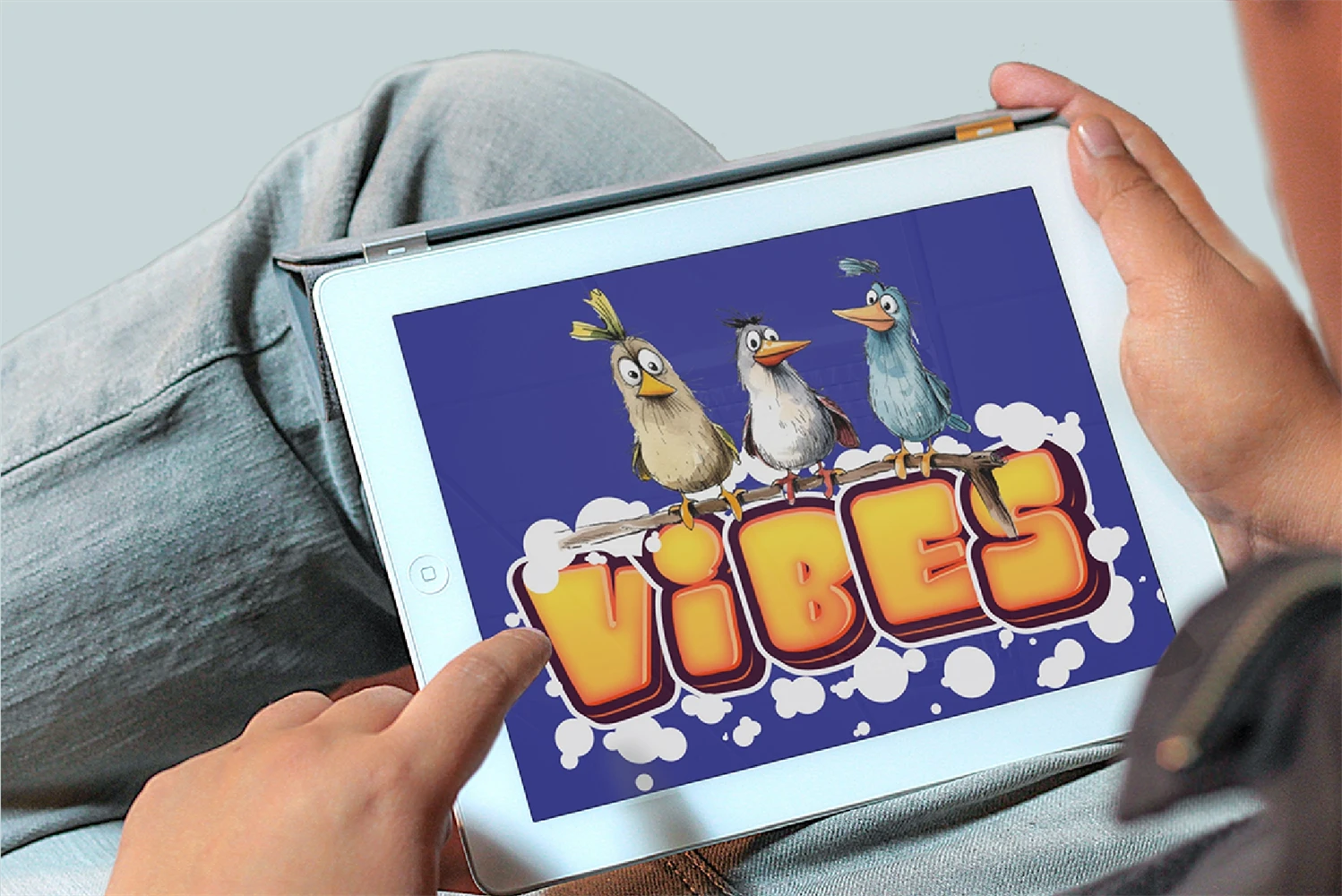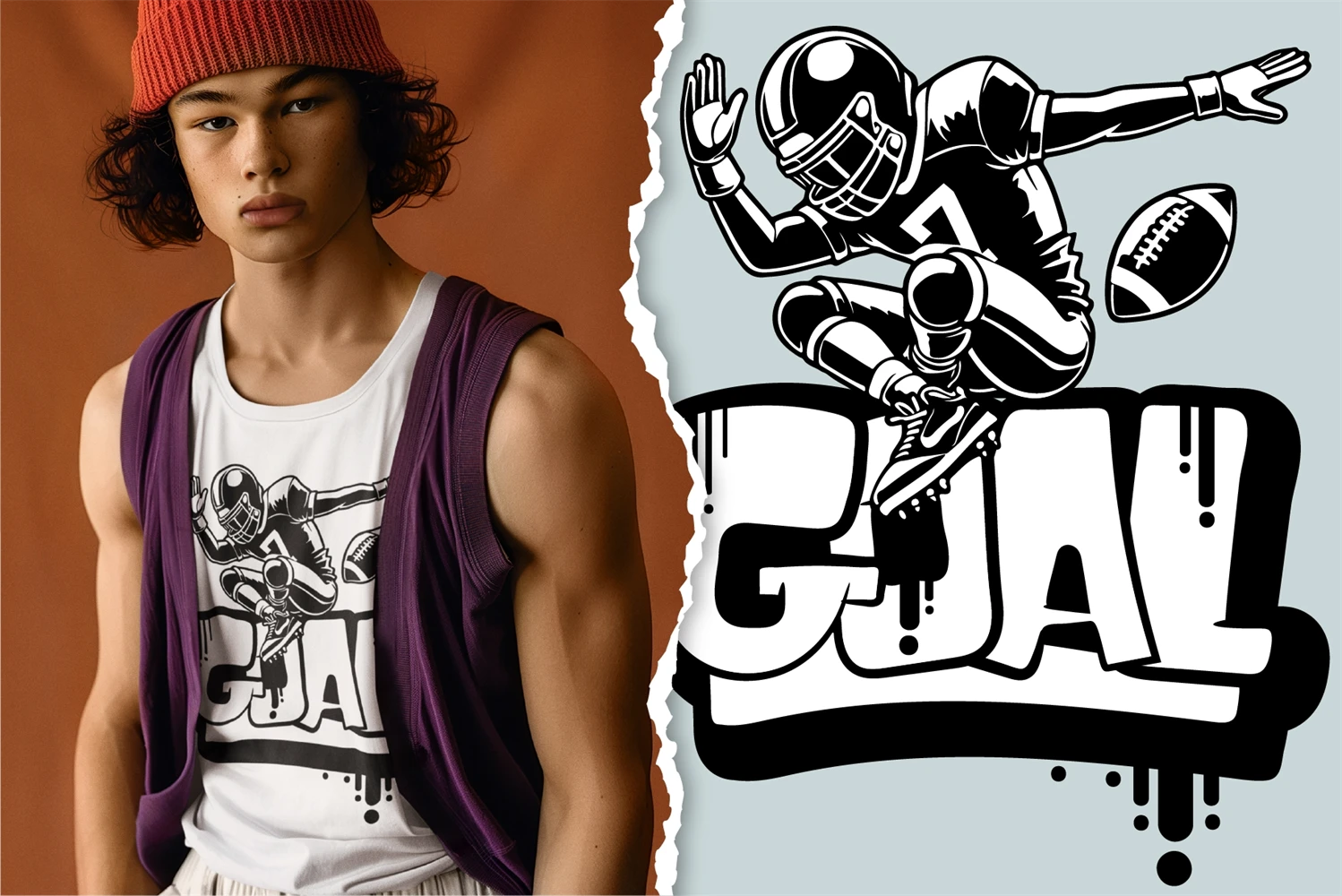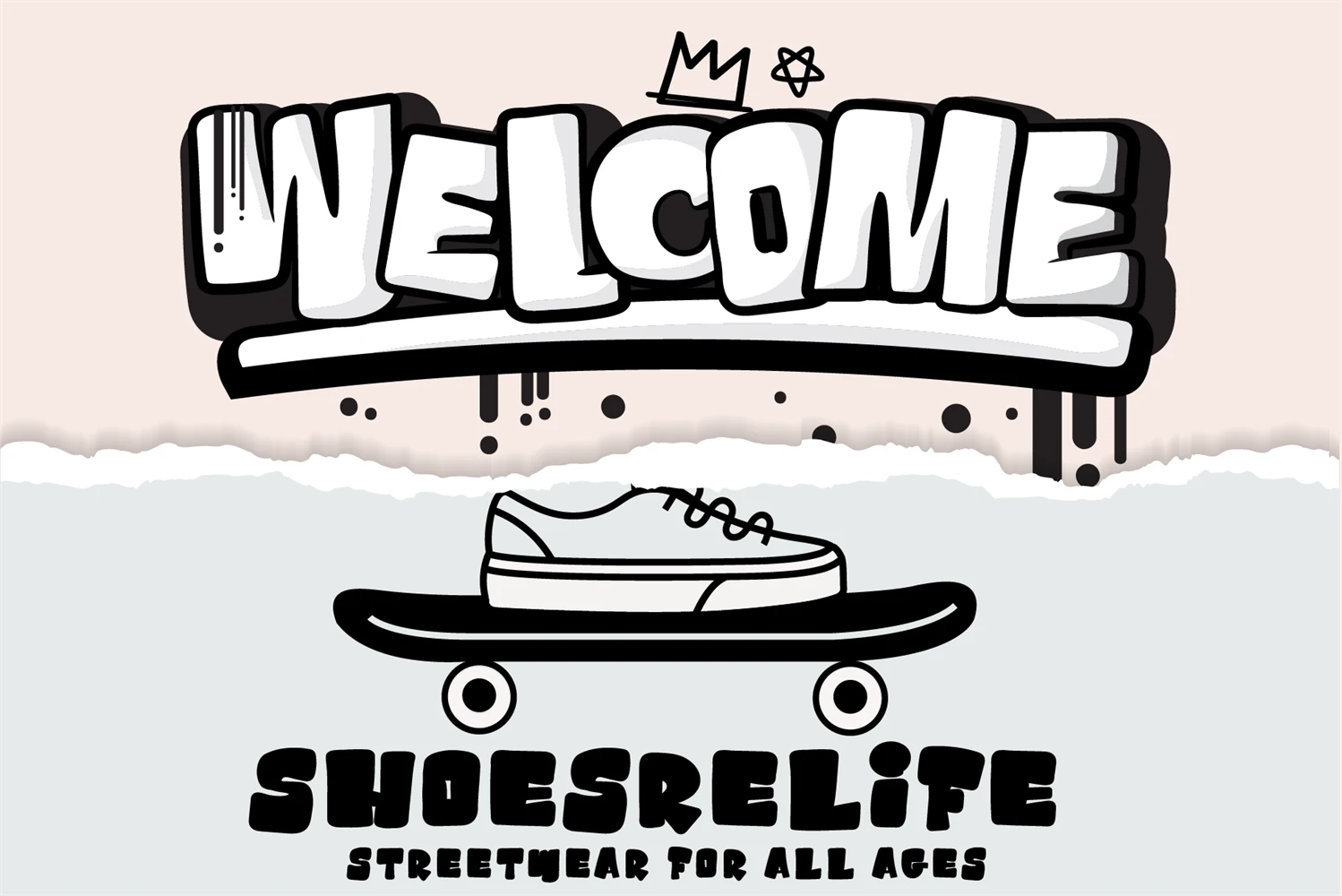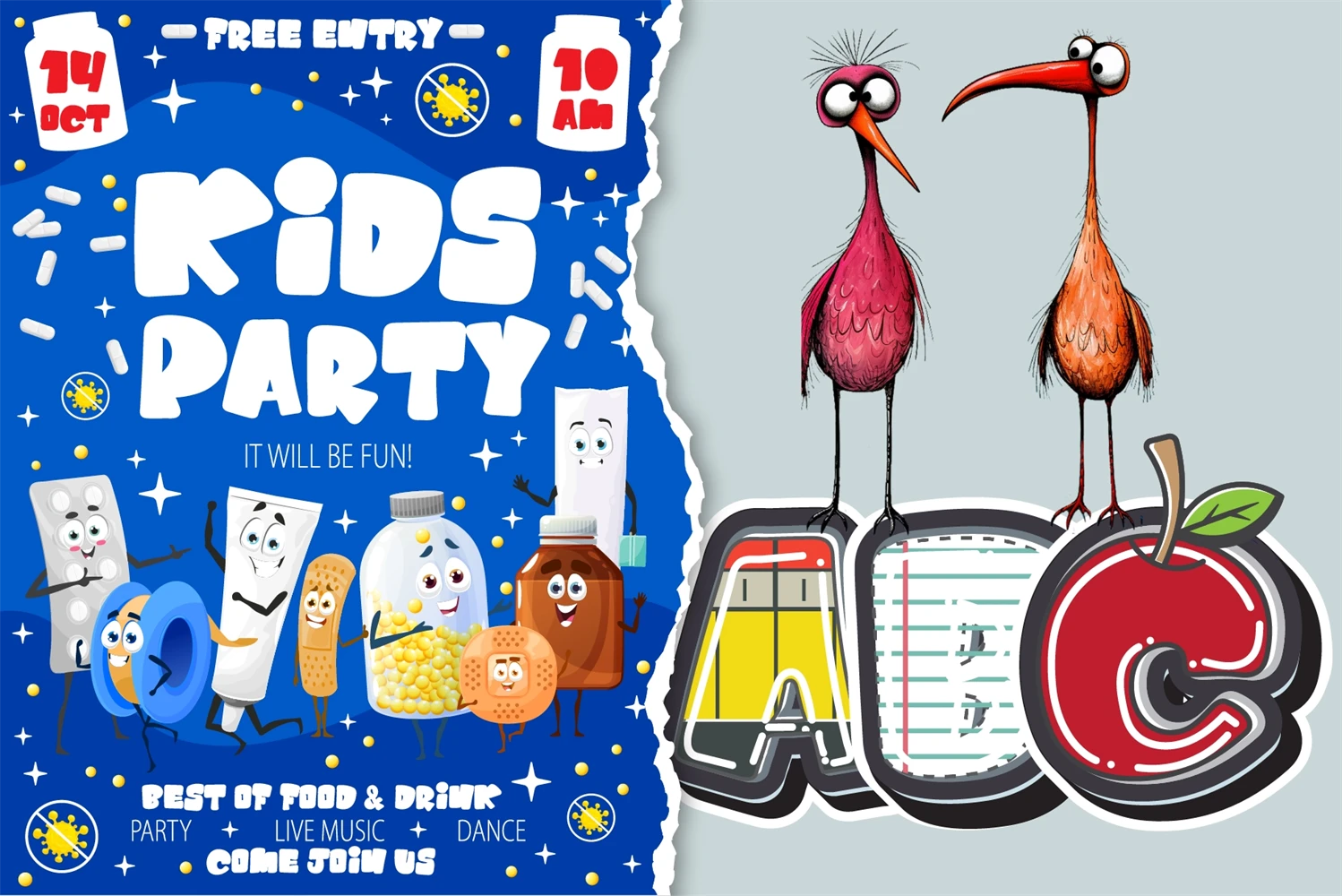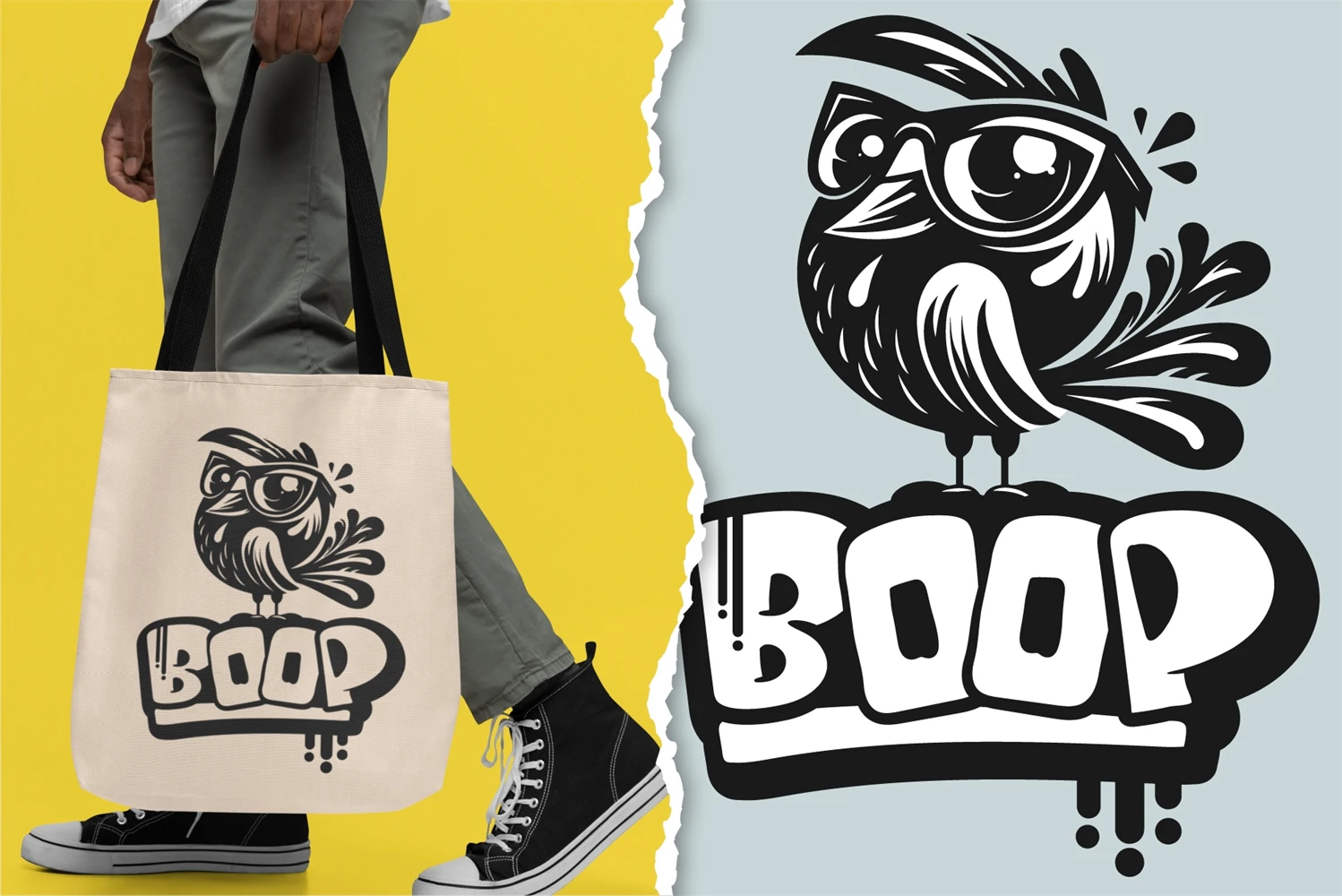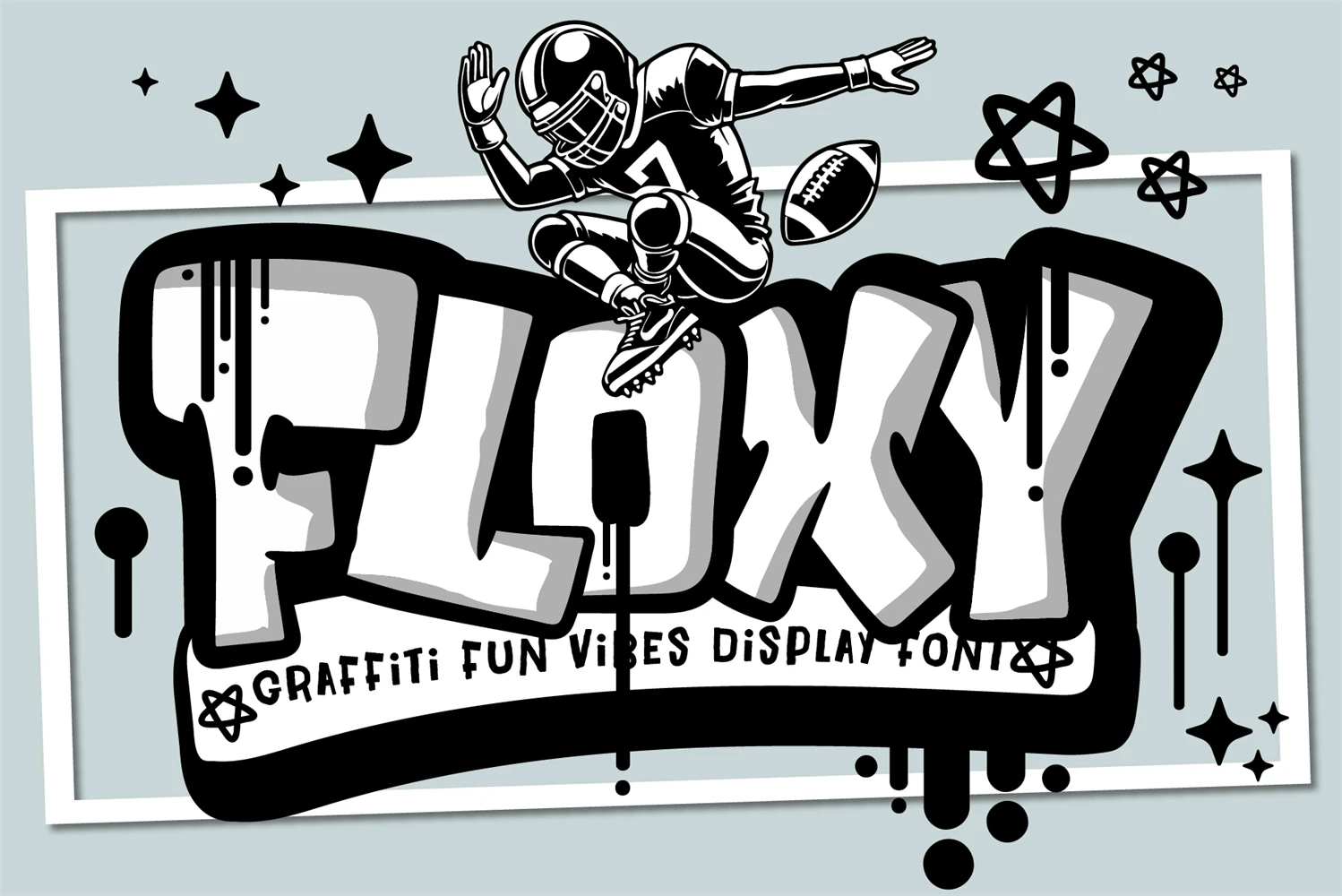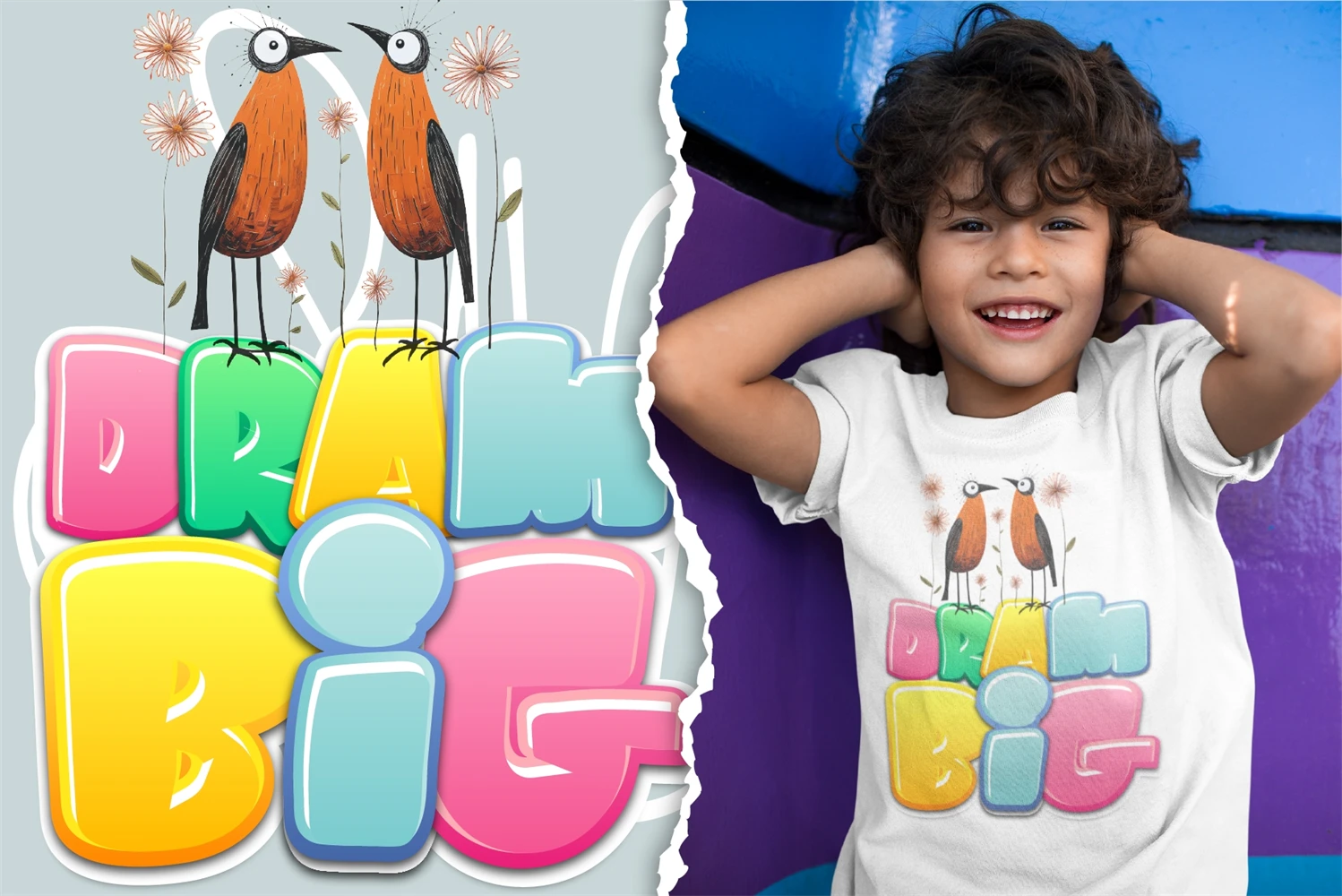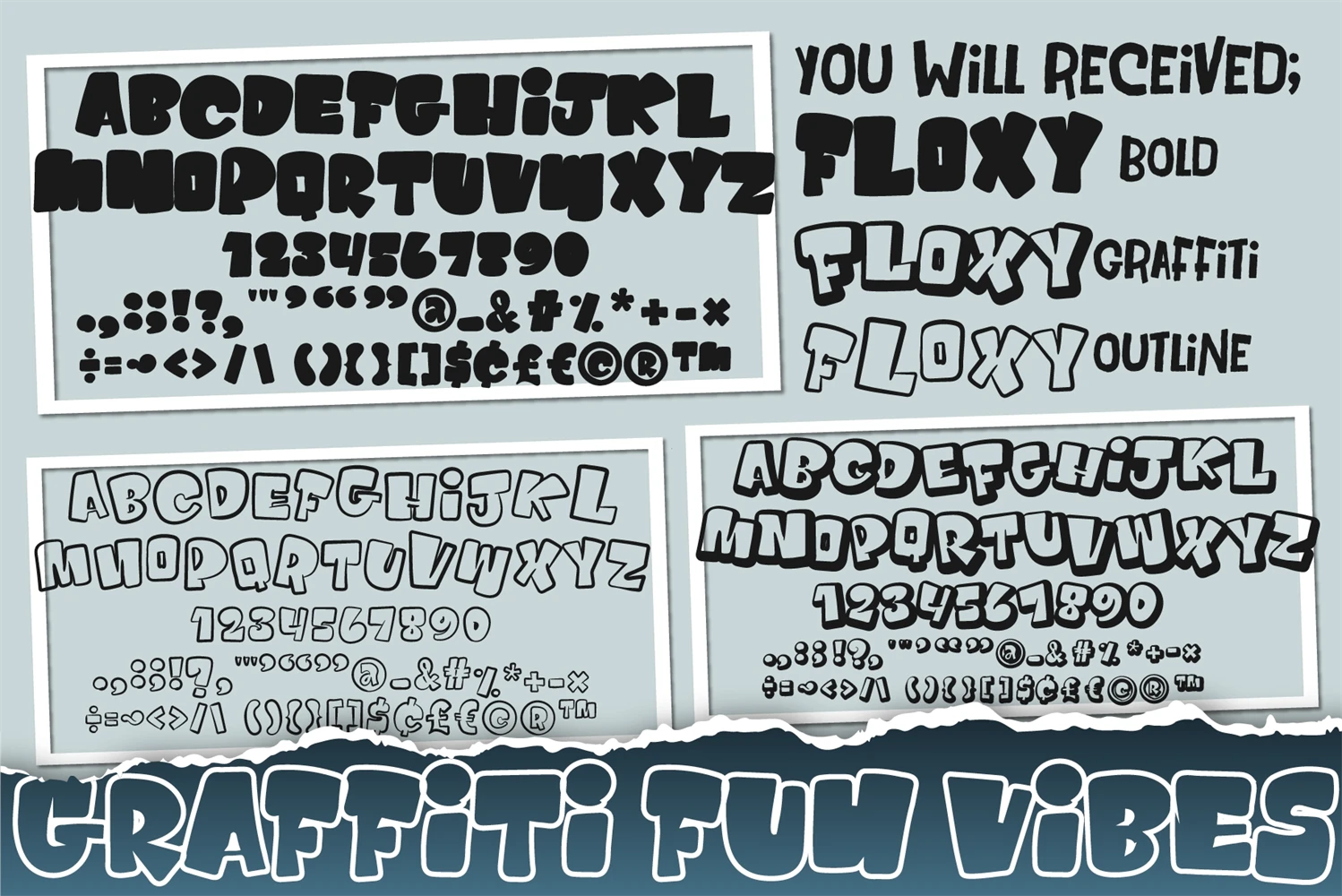
Floxy unleashes creativity with its bold and playful graffiti style, designed to bring a fun, urban street art vibe to your projects! Perfect for youthful designs, Floxy combines graffitis raw energy with modern flair, making it ideal for posters, logos, apparel, digital art, and more.
Whether youre creating edgy streetwear, designing urban-themed graphics, or looking for a typeface that exudes vibrant energy, Floxy is the perfect choice. Its playful, free-spirited design embodies the rebellious essence of street art, capturing the heart of graffiti culture. Floxy is versatile, adding a fresh, youthful edge to any project, and works seamlessly with all major design software.